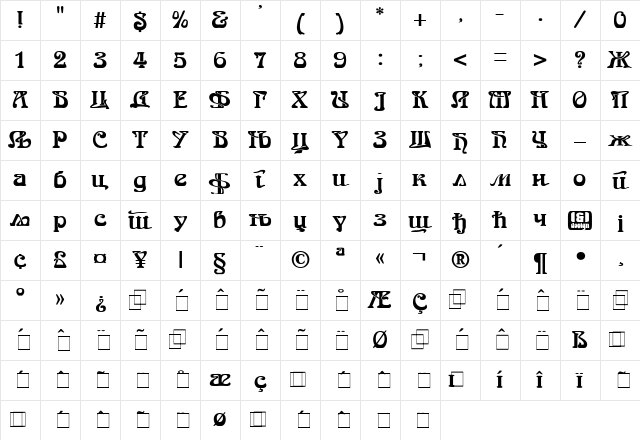
Complete YU C Arnold Boecklin Regular glyph index. Displaying only characters natively supported by YU C Arnold Boecklin Regular font.
YU C Arnold Boecklin is a composed and adaptable typeface that performs quietly and consistently across a wide range of design contexts.